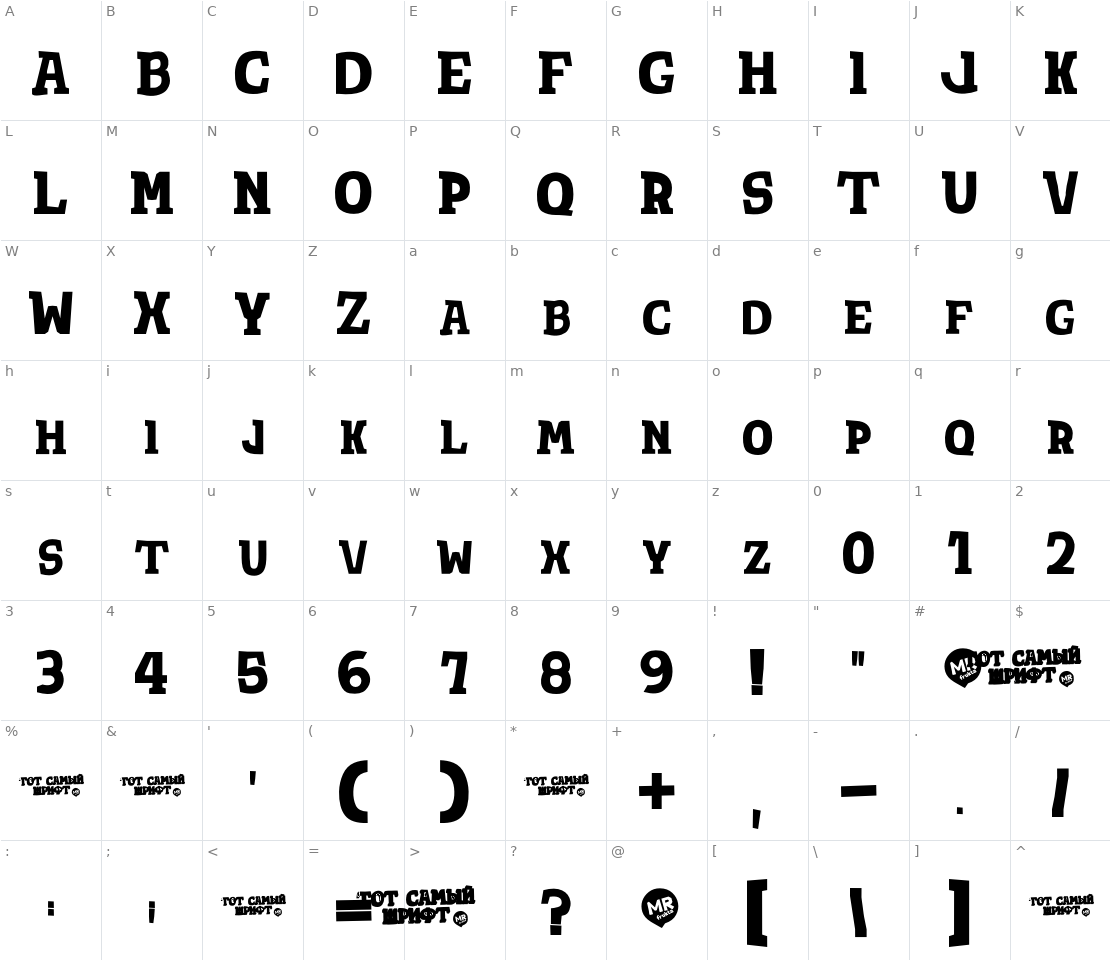
Tot Shrift
Tot Shrift is a chunky slab serif from MRfrukta with heavy, slightly quirky letterforms that split the difference between old western wood type and modern display work. The exaggerated weight and decorative personality give it a playful boldness that keeps it from feeling too serious or historically rigid. Best at large sizes for headlines, posters, and branding where you want something that hits with character and a little humor.